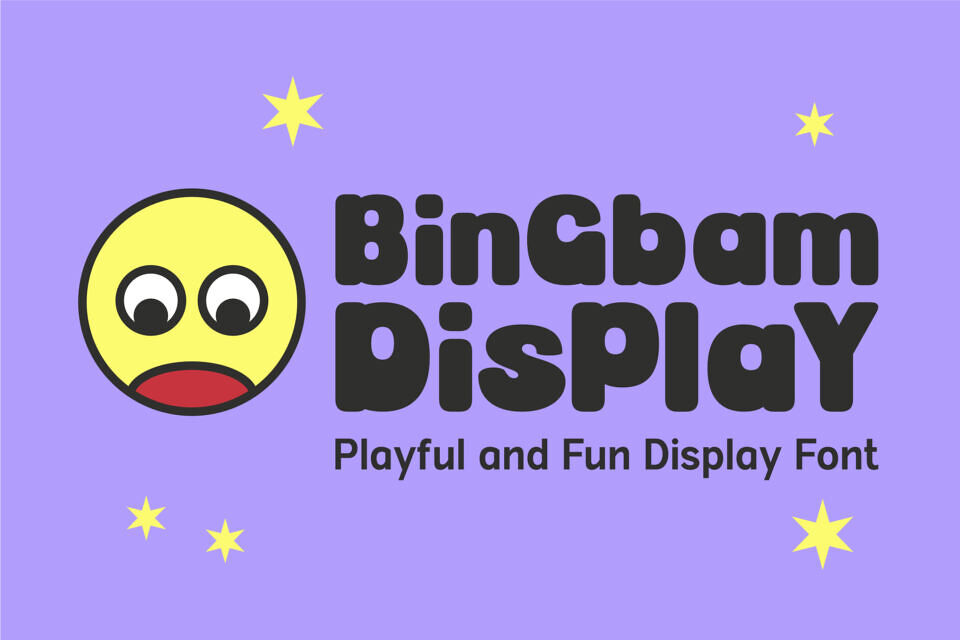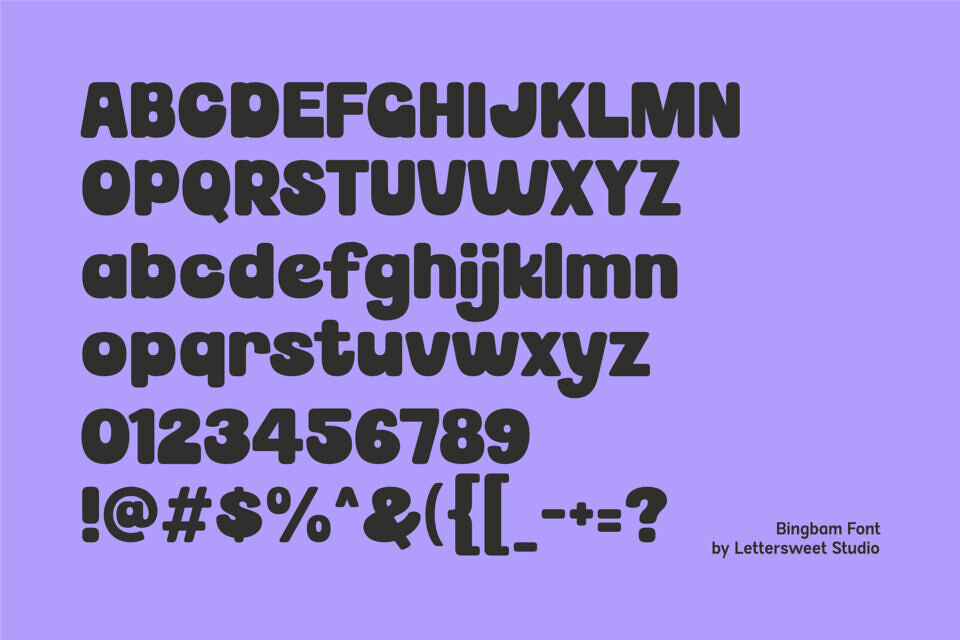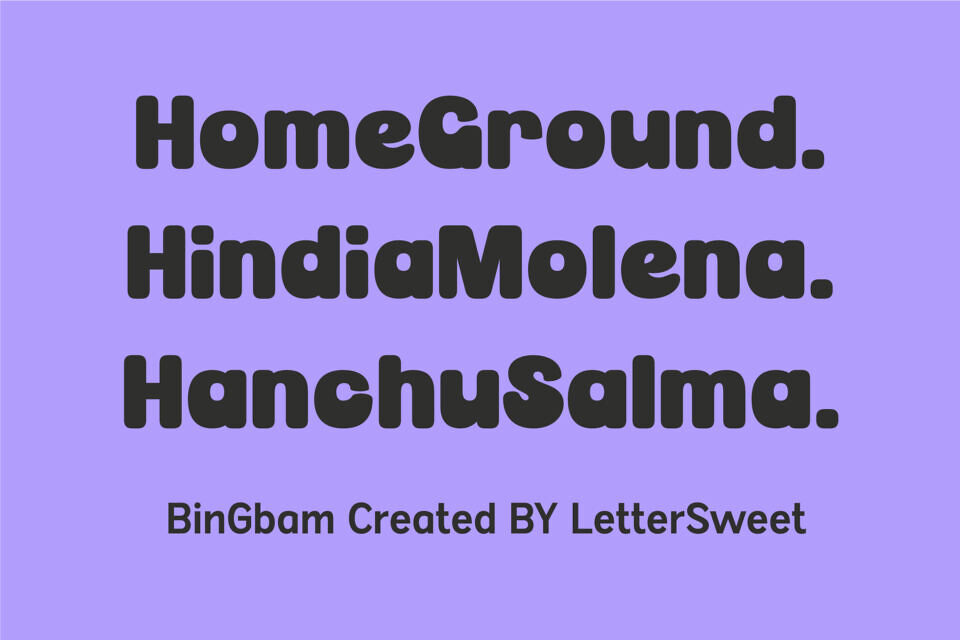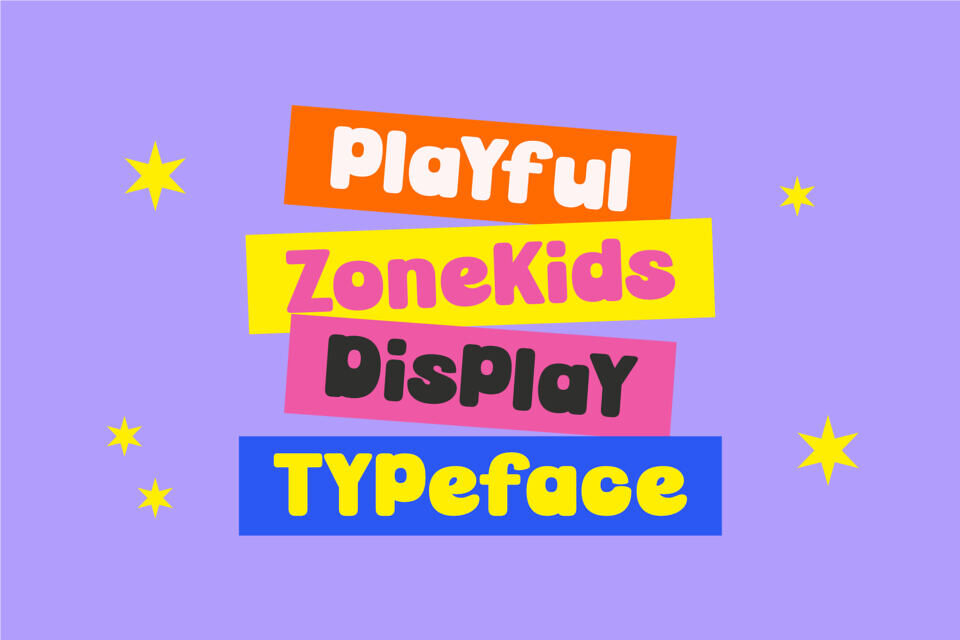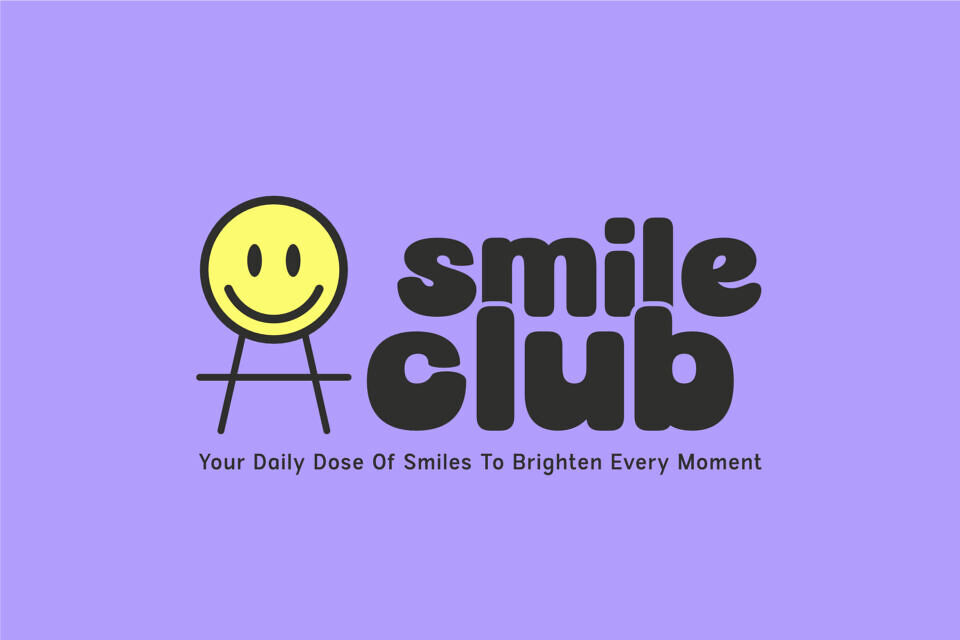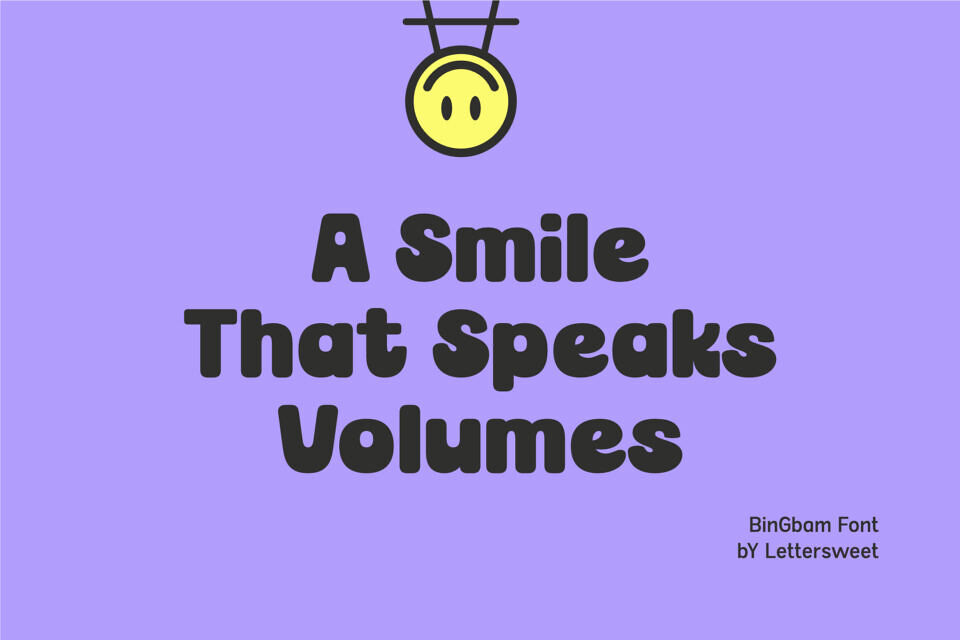
Bingbam Font
Bring your designs to life with Bingbam, a bold and playful font designed to capture attention instantly. Featuring chunky letterforms, rounded edges, and a cheerful personality, this font is perfect for kids’ projects, cartoons, branding, posters, packaging, and social media graphics.
Its fun and expressive style makes every word feel lively and energetic, helping your design stand out in a crowded space. Whether you’re creating a joyful logo or eye-catching headlines, BinGbam Display delivers a unique and memorable visual impact. Perfect for: children’s books, playful branding, YouTube thumbnails, stickers, merchandise, and more.